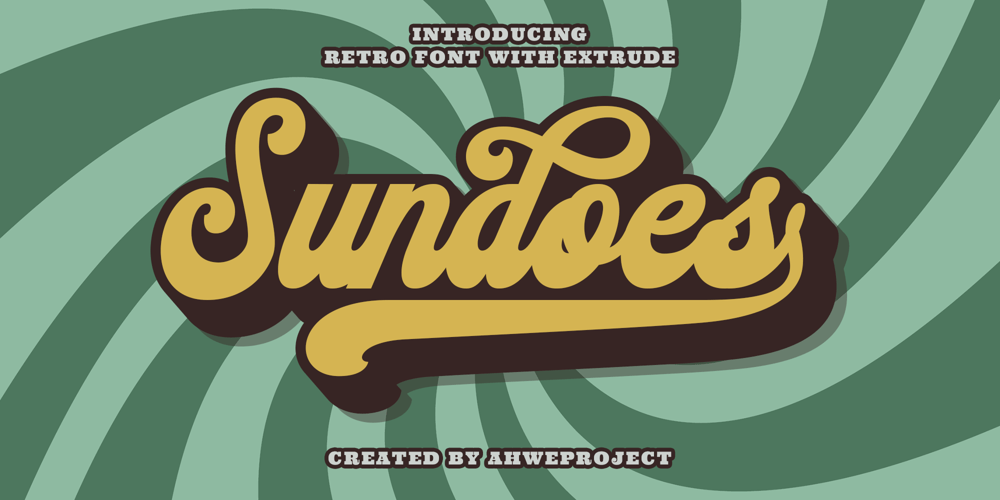
Sundoes Font Family was designed by Dida Ahluddin and published by ahweproject. Sundoes contains 2 styles and family package options. Sundoes is a cool and fun script display font. With a retro and groovy vibe, this font is suitable for a wide pool of design ideas.This font is PUA encoded which means you can access all glyphs and swashes with ease!